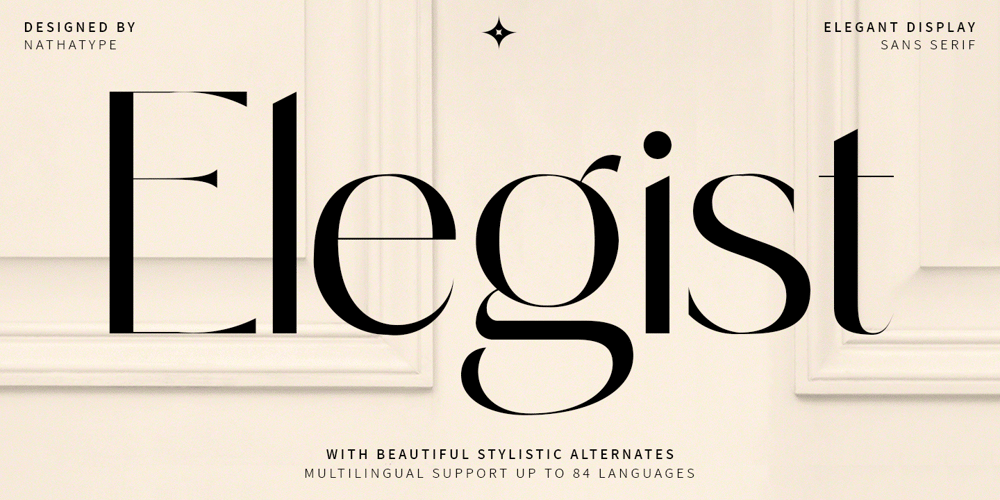
Elegist
Elegist font
Elegist Font Family was designed by Donis Miftahudin and published by Nathatype. Elegist contains 1 styles and family package options. It’s the ultimate way to be you. Elegist is a sans serif font that match your every design projects. Through this font, it creates simple, clean yet versatile looks. It is also cleanly designed font that’s easy to read and will look great in a variety of sizes. Features: Alternates Lower and uppercases Numerals and Punctuations This font is perfectly used for many design projects, such as poster, logo, book cover, branding, heading, printed product, merchandise, quotes, social media campaign, etc. Get more inspiration about how to use it by seeing the font preview.Thank you for purchasing our fonts. Please don’t hesitate to contact us, if you have any further question or issues. We’re happy to help. Happy Designing.Tags